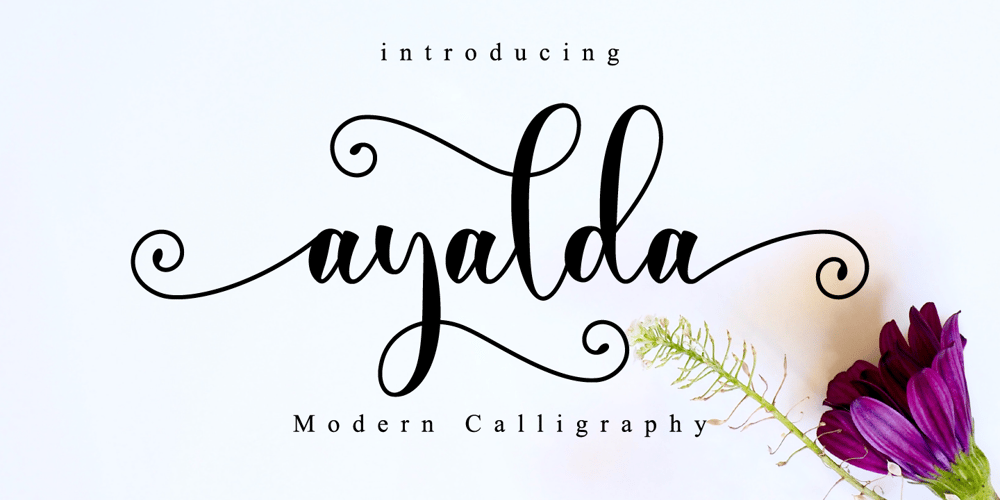
Ayalda Font Family was designed by Novia Himatunnisa and published by Nissa Nana. Ayalda contains 1 styles and family package options. Ayalda is a classy and elegant handwritten font with beautiful swashes. Get inspired by its unique look, and turn any design idea into a true standout!